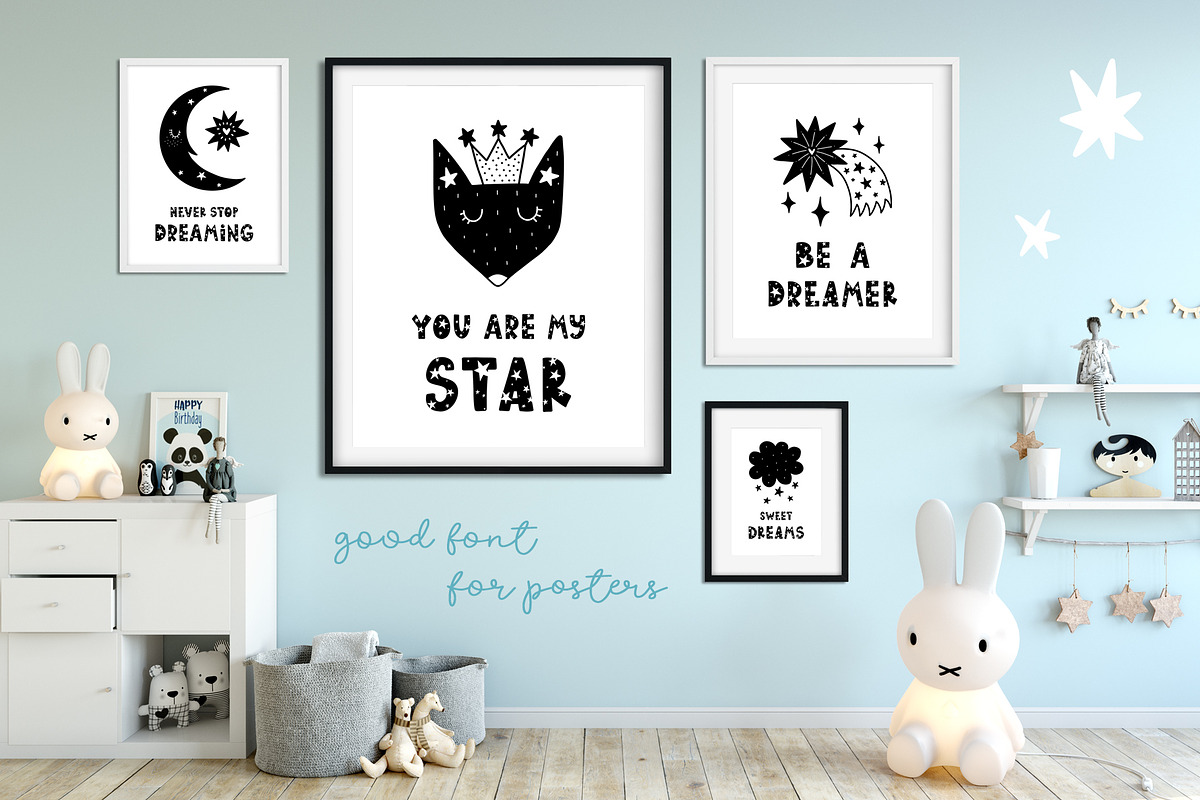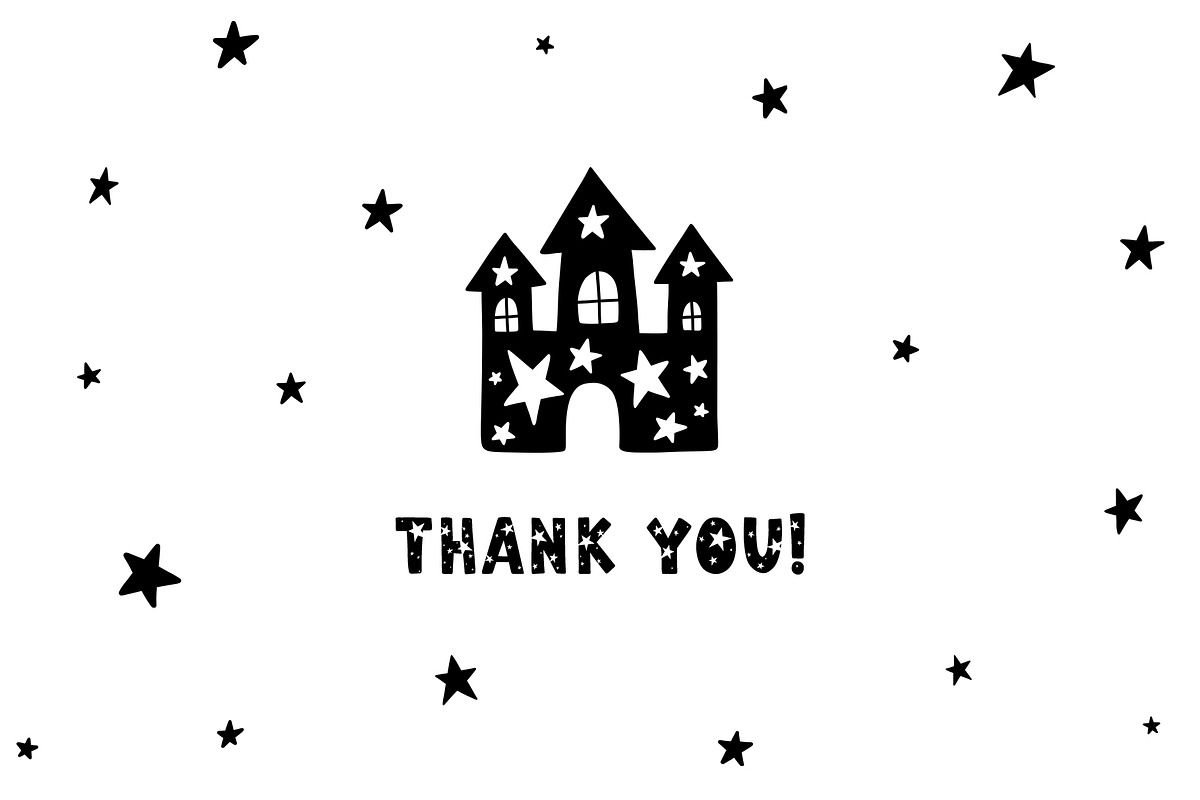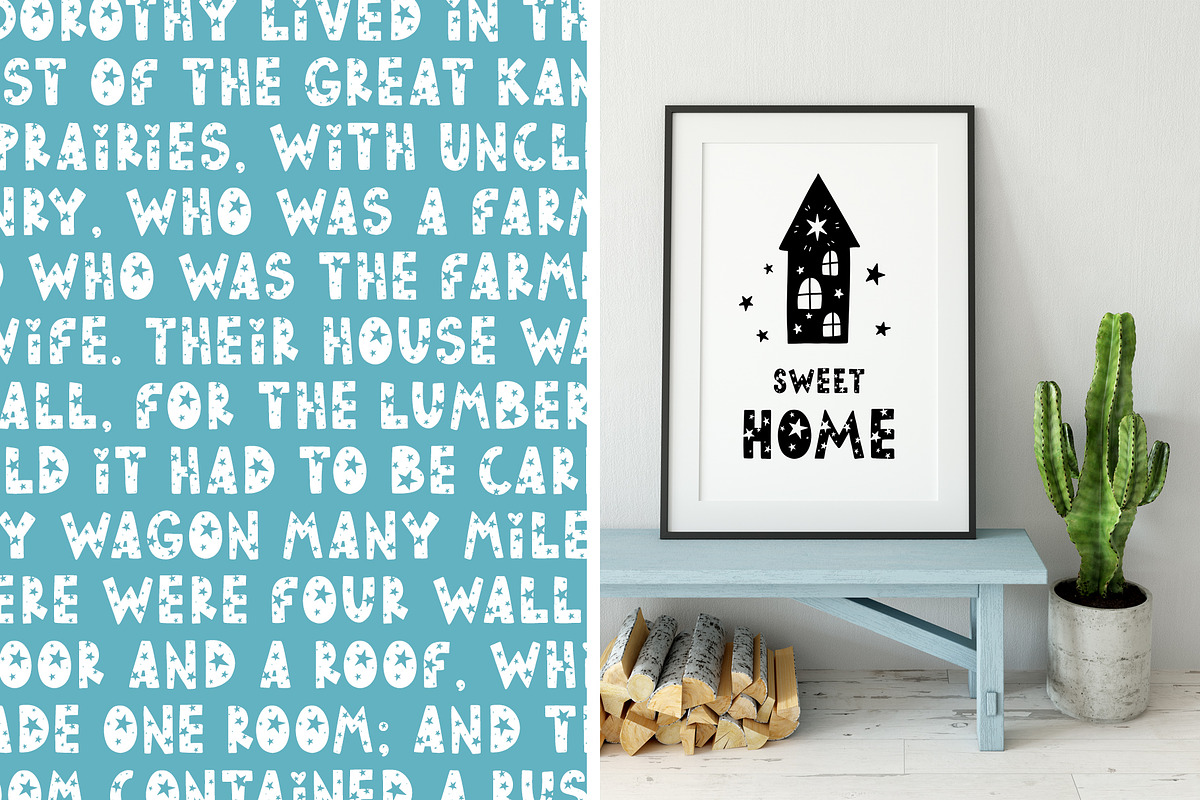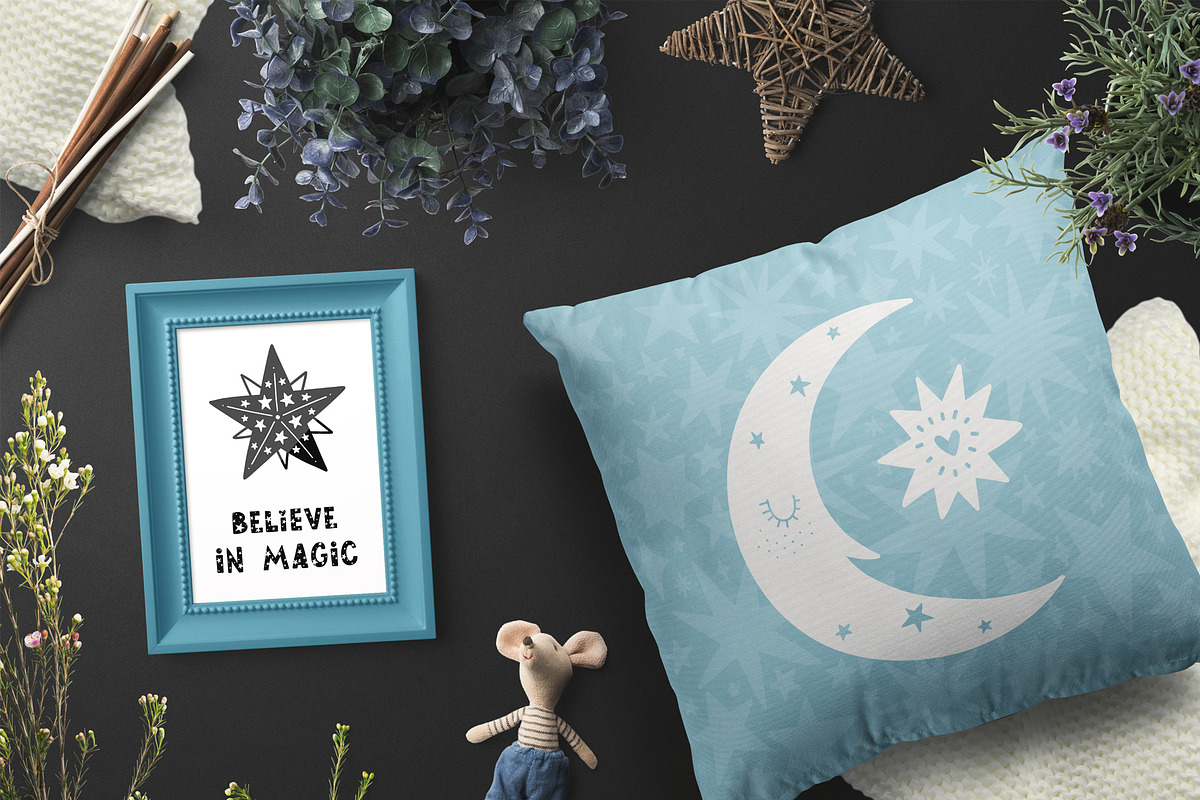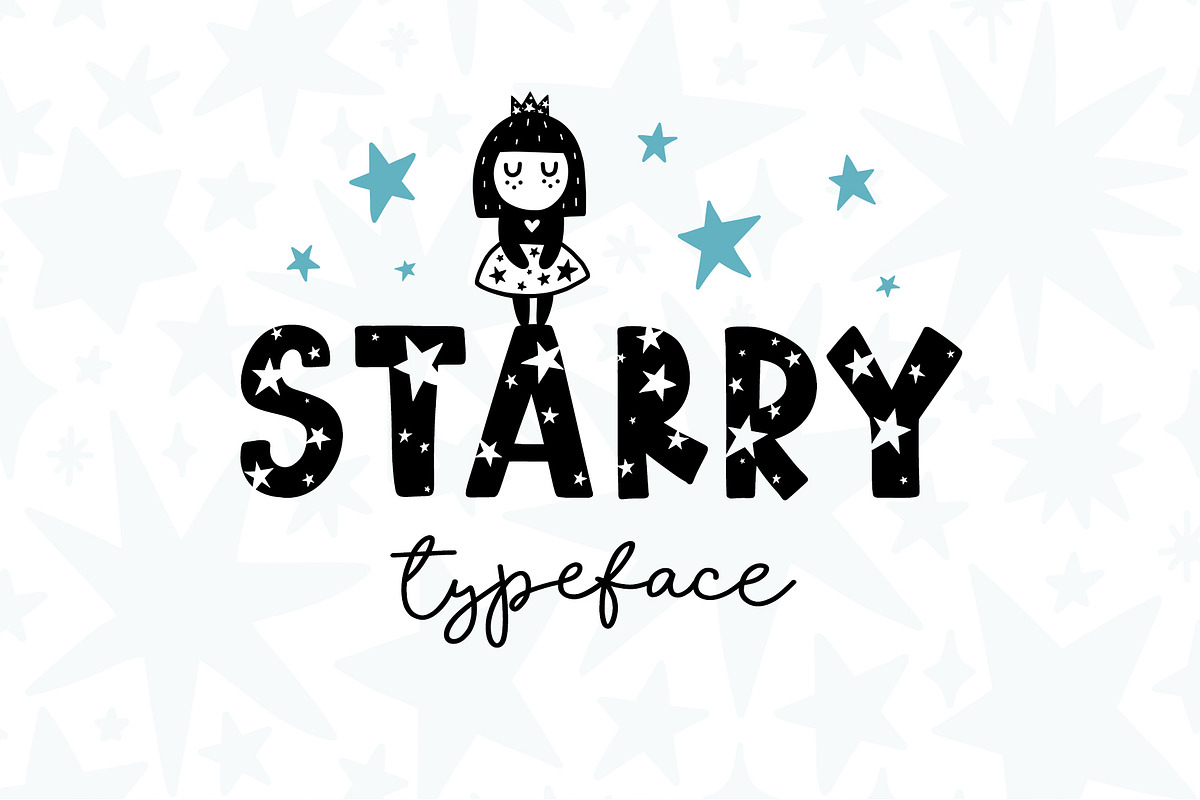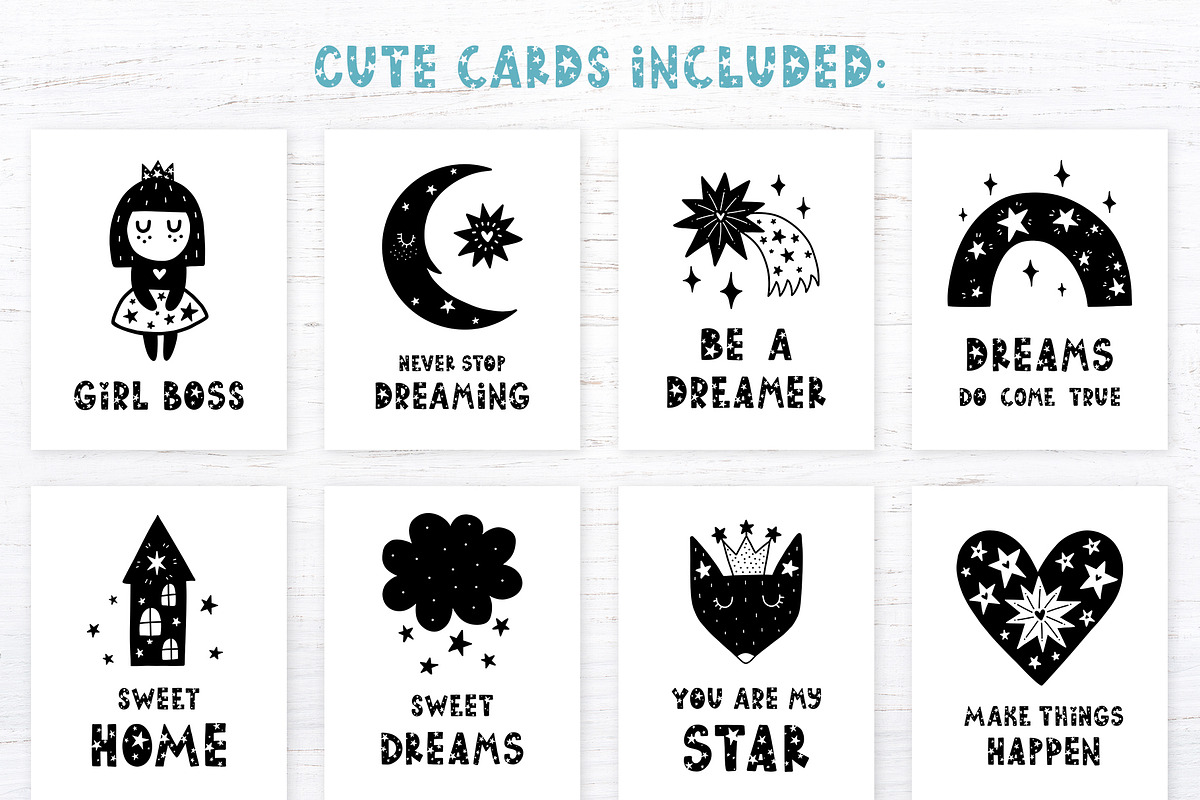
Starry Typeface - Font with Clipart
♥ Starry Typeface - Font with stars and illustrations for dreamers! ♥
This script is perfect for cards, prints, logos, invitations, arrange illustration and decoration. It has upper and lower case letters, numbers, special characters, accents. Perfect for Children!